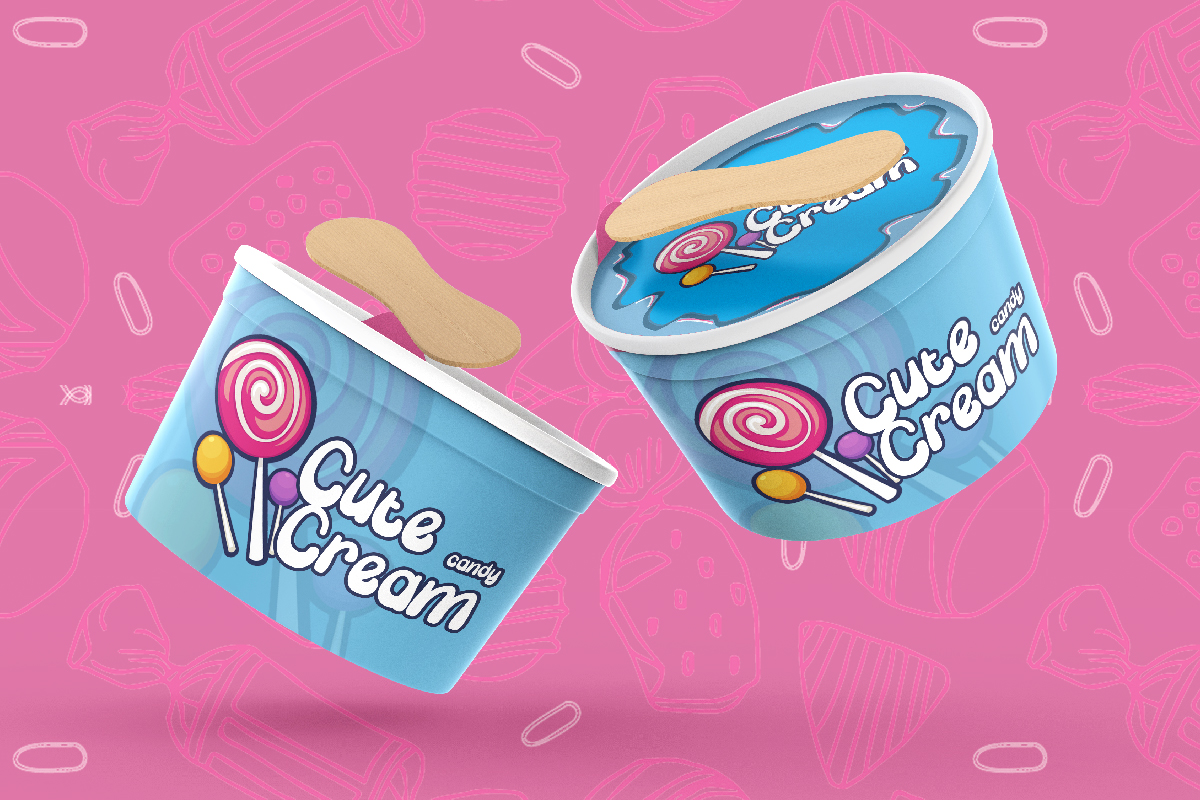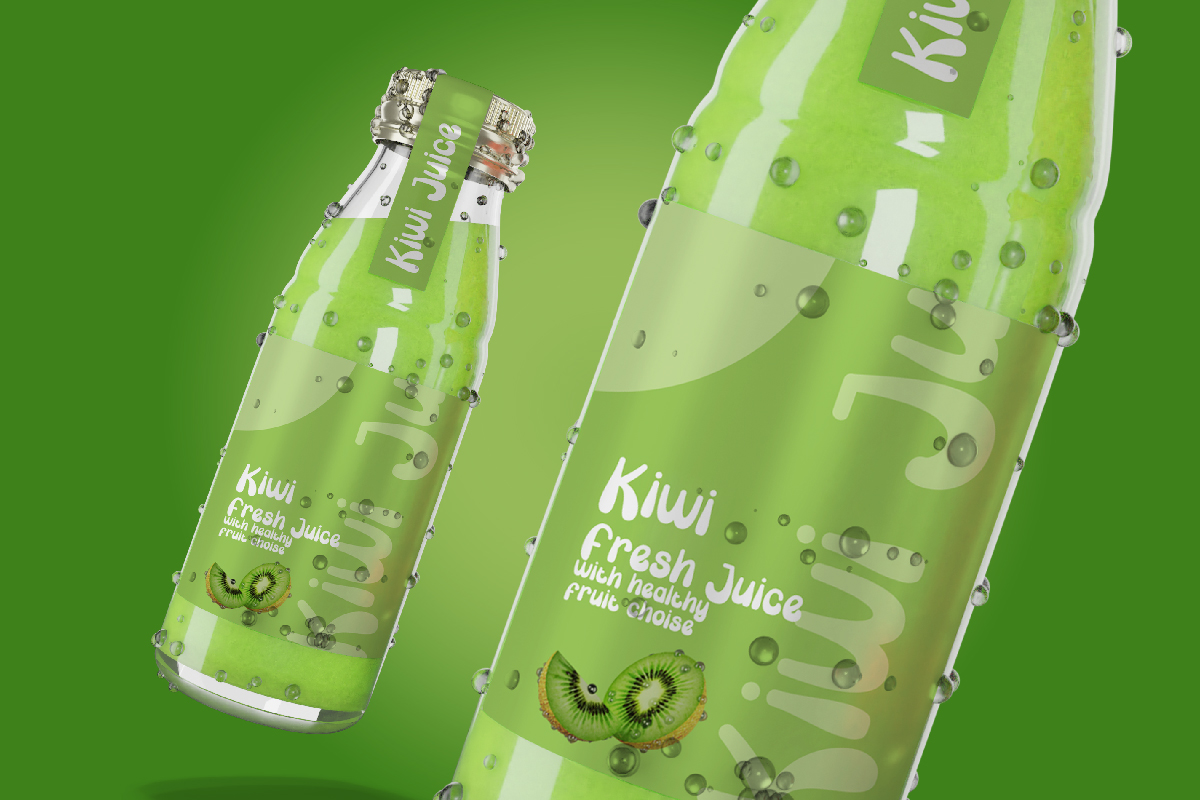
Bubble Candy Font
Bubble Candy Display Font
It’s a groovy display font with comic style. This is a bold and cute look with a bubble brush effect. Will be perfect for branding, logo, products packaging, signage, stationery, title etc. There are many industries that is suitable for this font : animation, circus, food and beverage, game, kids etc